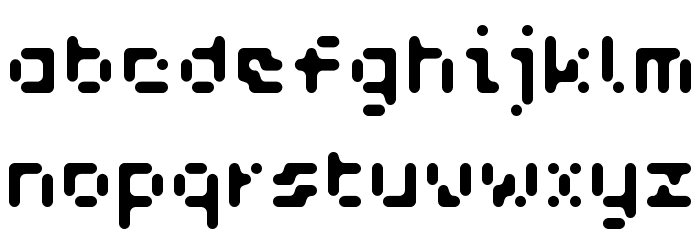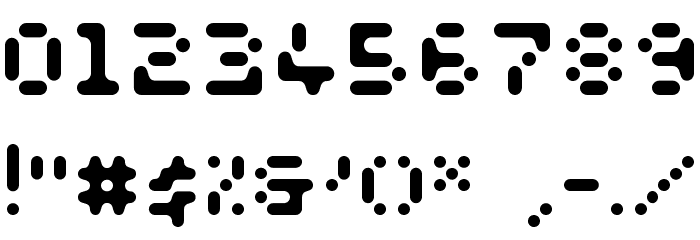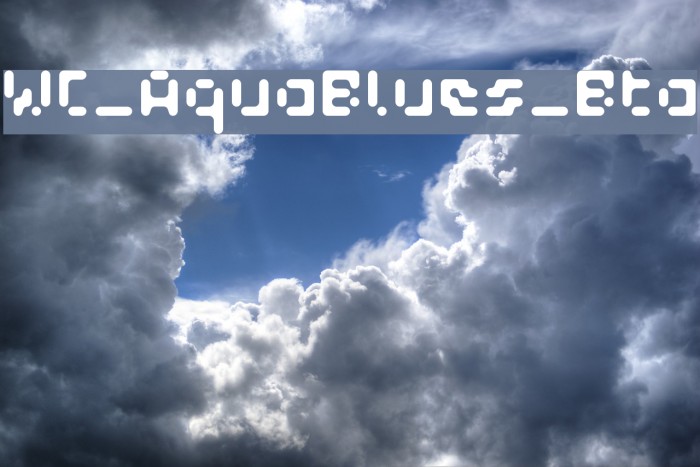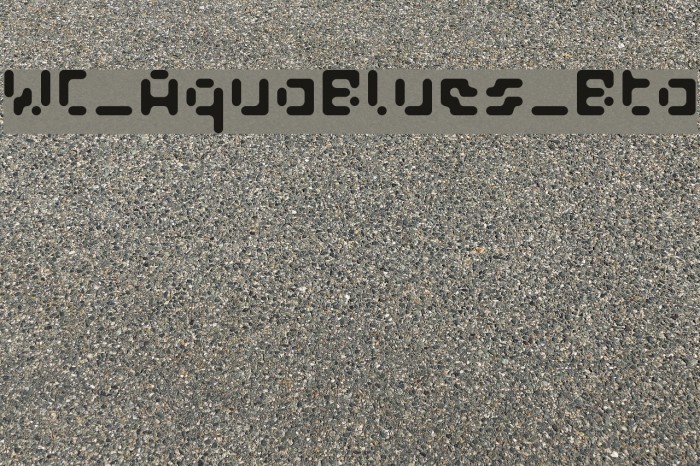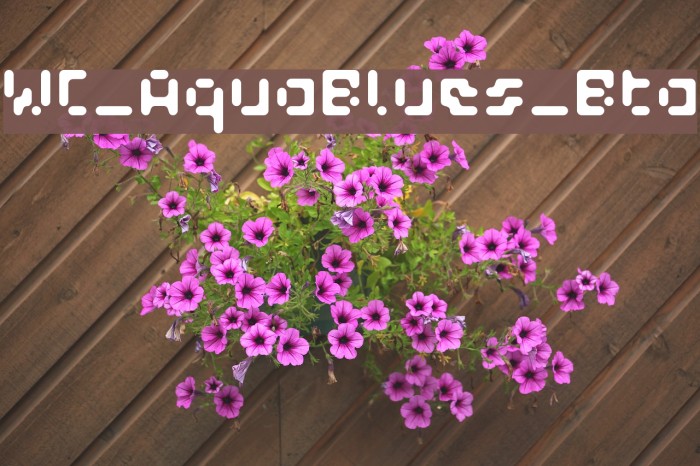
WC_AquaBlues_Bta Font
This font features a unique and playful design, characterized by its rounded, bubble-like forms. Each character is composed of bold, circular shapes that create a sense of whimsy and fun. The letters are evenly spaced, with consistent thickness throughout, giving it a cohesive and balanced appearance. The font's style is reminiscent of digital or pixel art, making it suitable for modern and creative projects. Its distinctive look is eye-catching and memorable, making it perfect for designs that aim to stand out. The font includes a full set of uppercase and lowercase letters, numbers, and a variety of special characters, ensuring versatility in its application.
A playful, bubble-like font with rounded, bold characters ideal for creative projects.
- Proposed Projects: Ideal for children's books, playful branding, digital art projects, and creative posters.